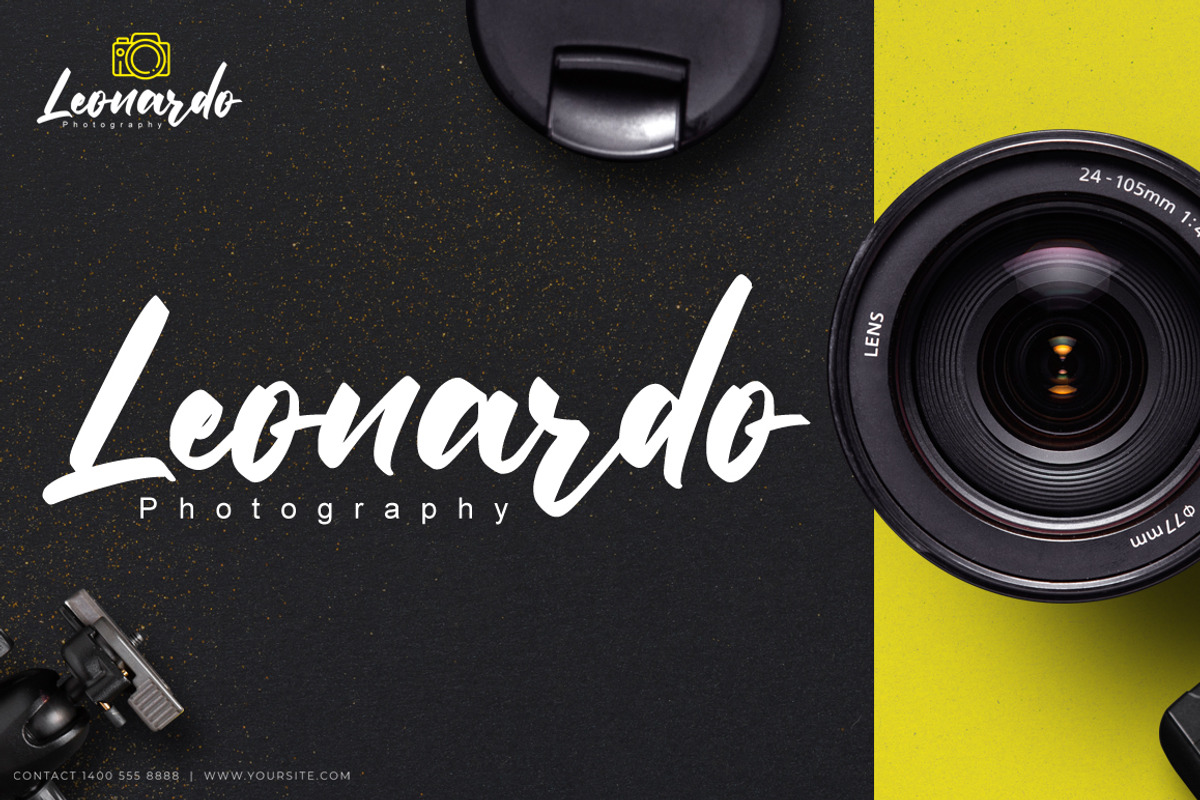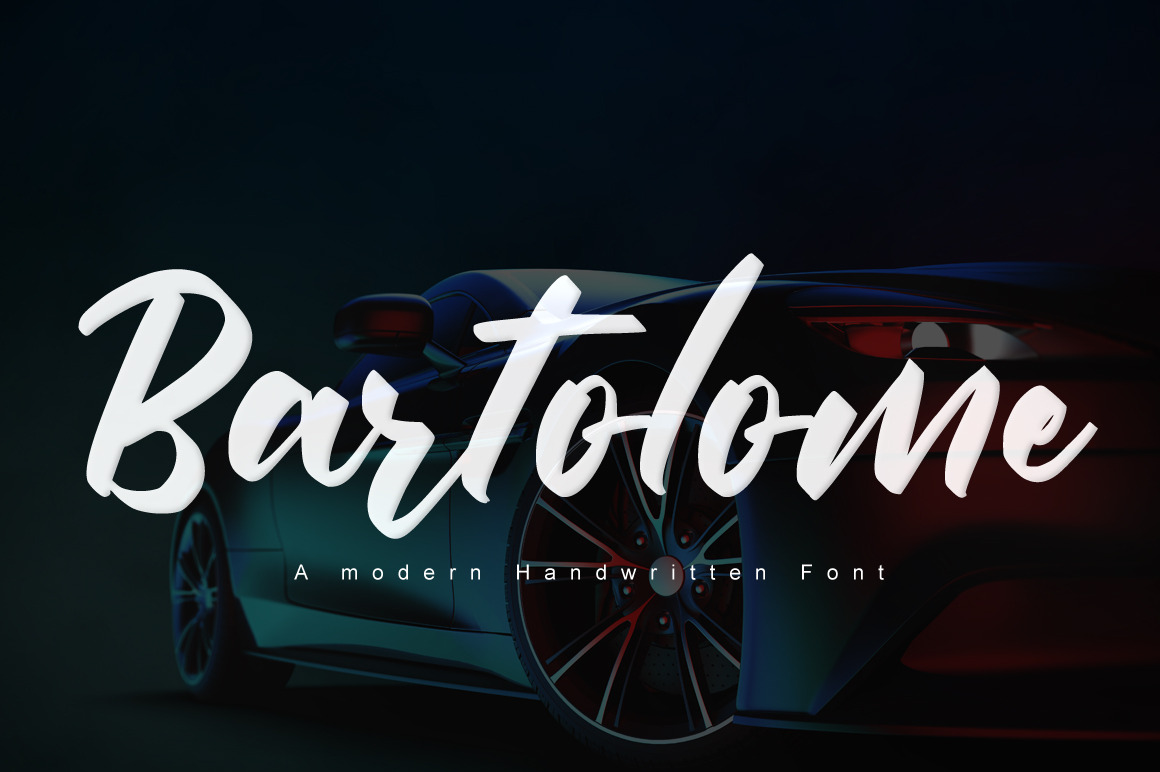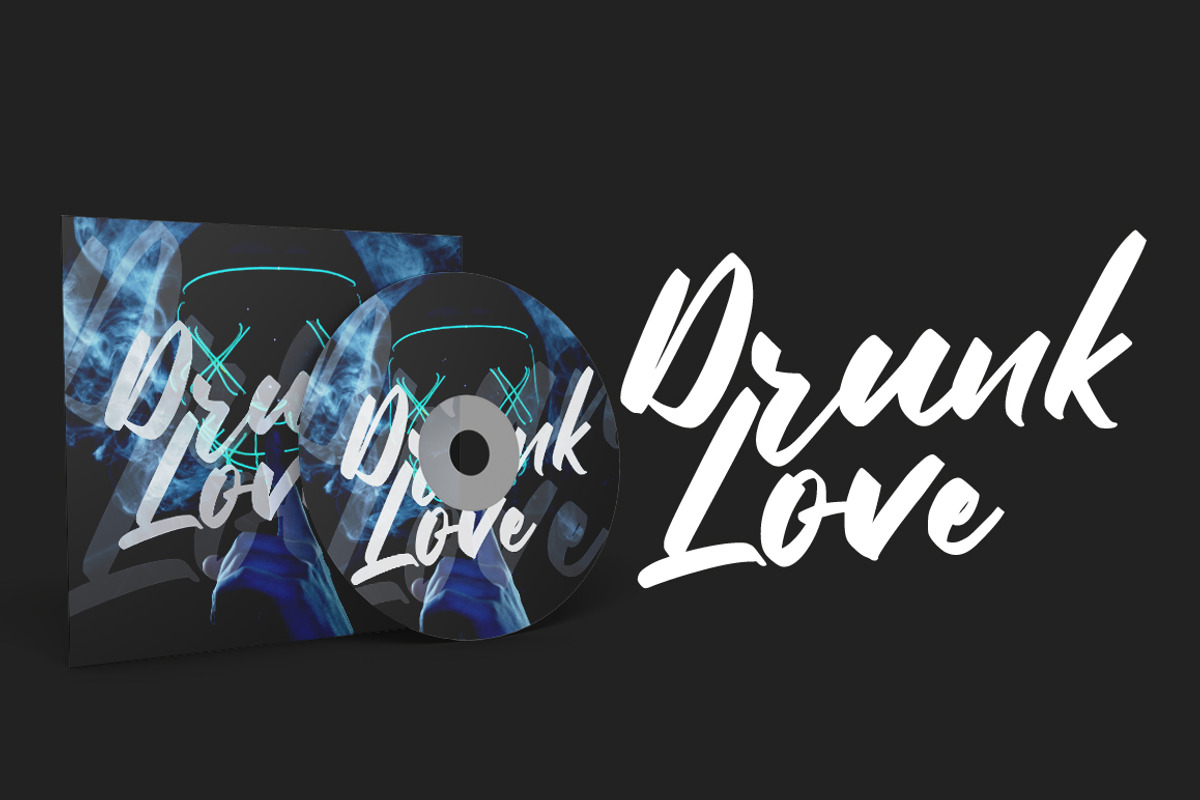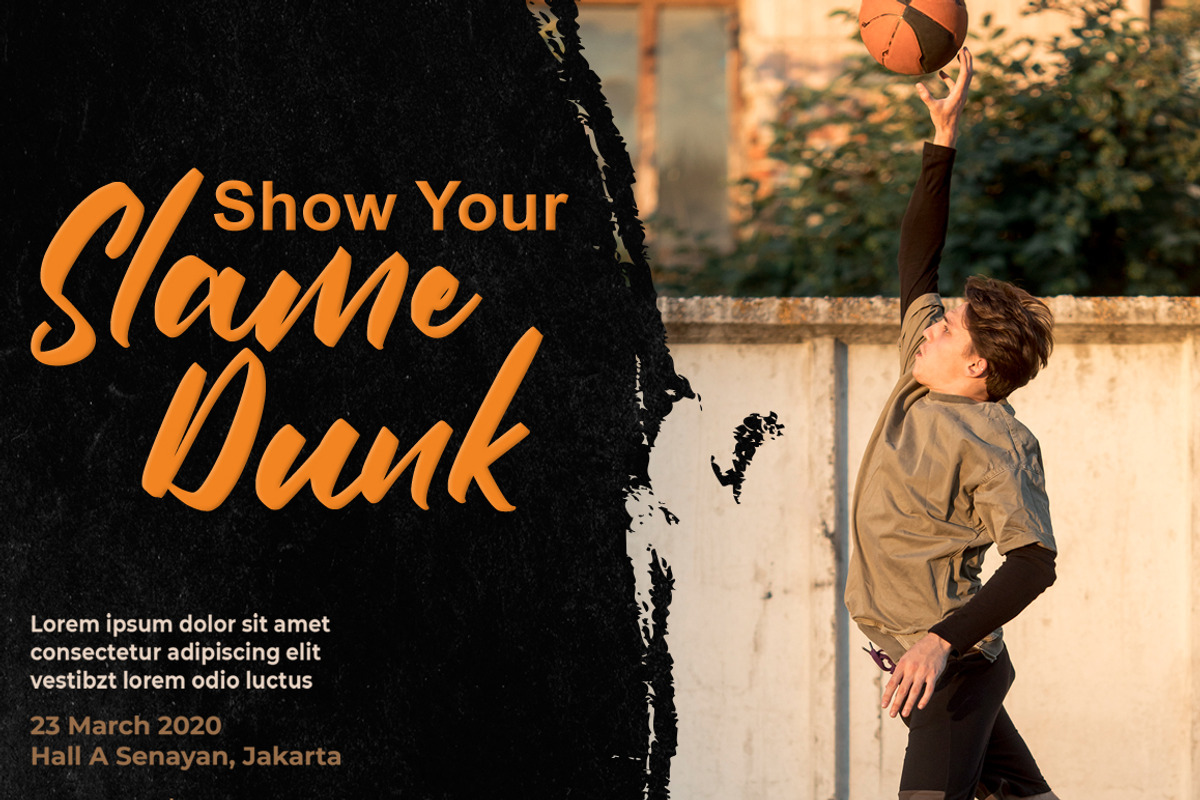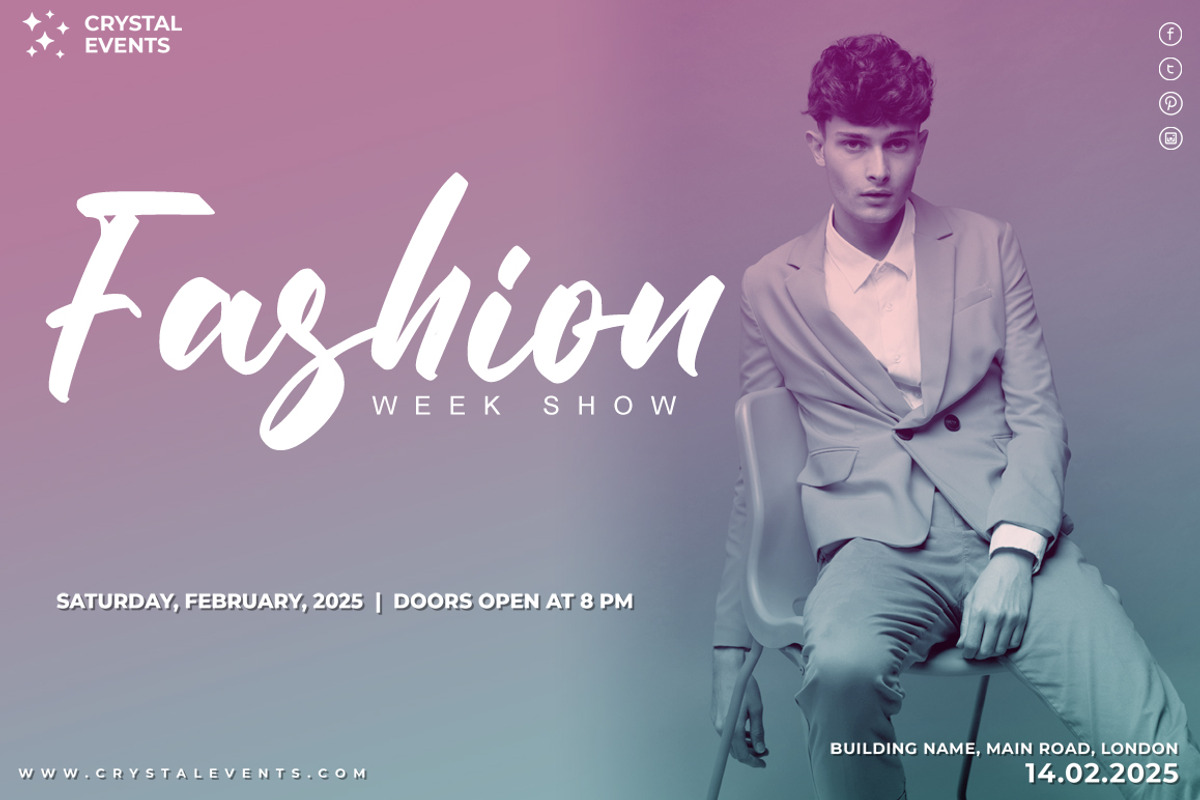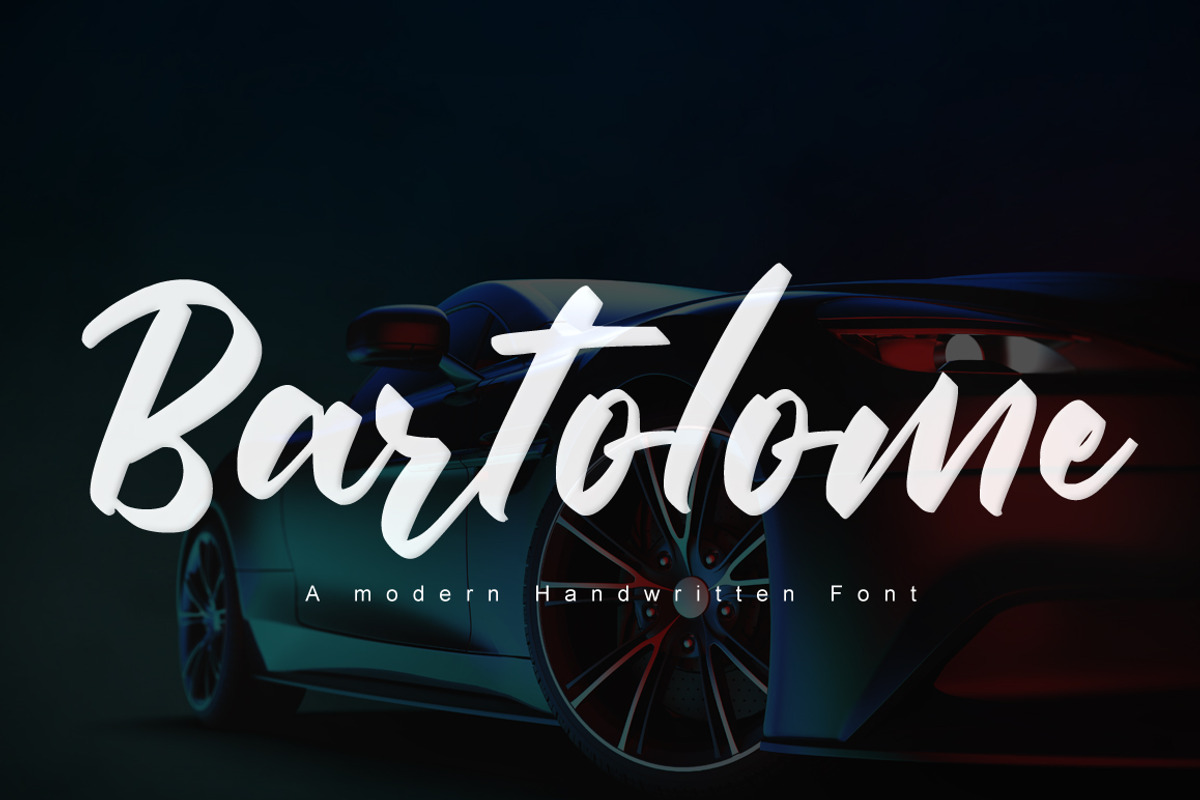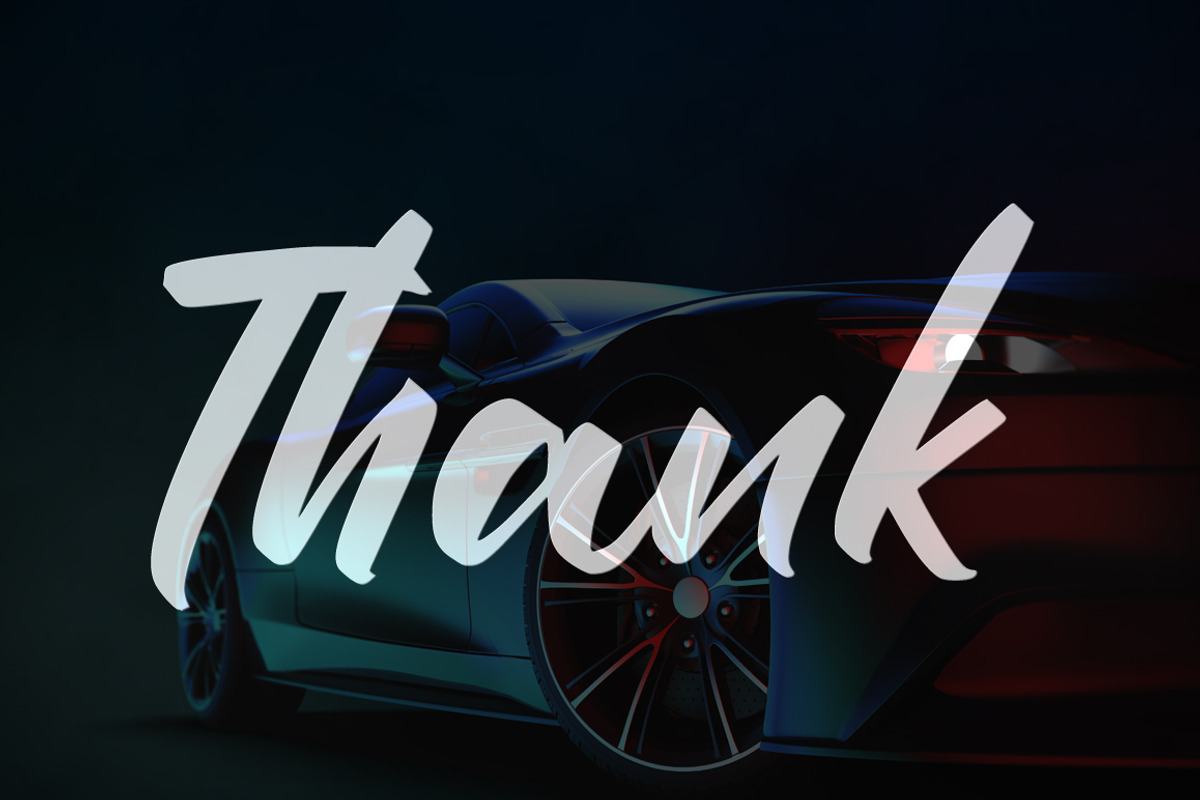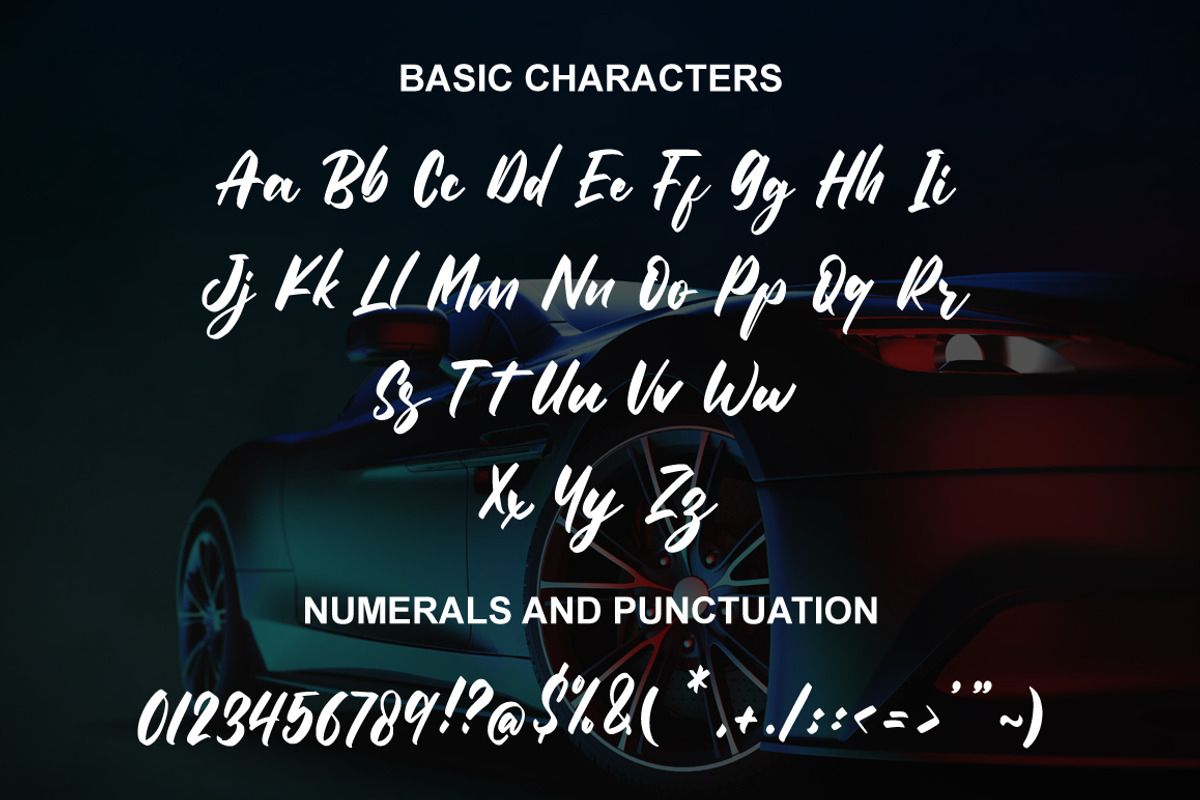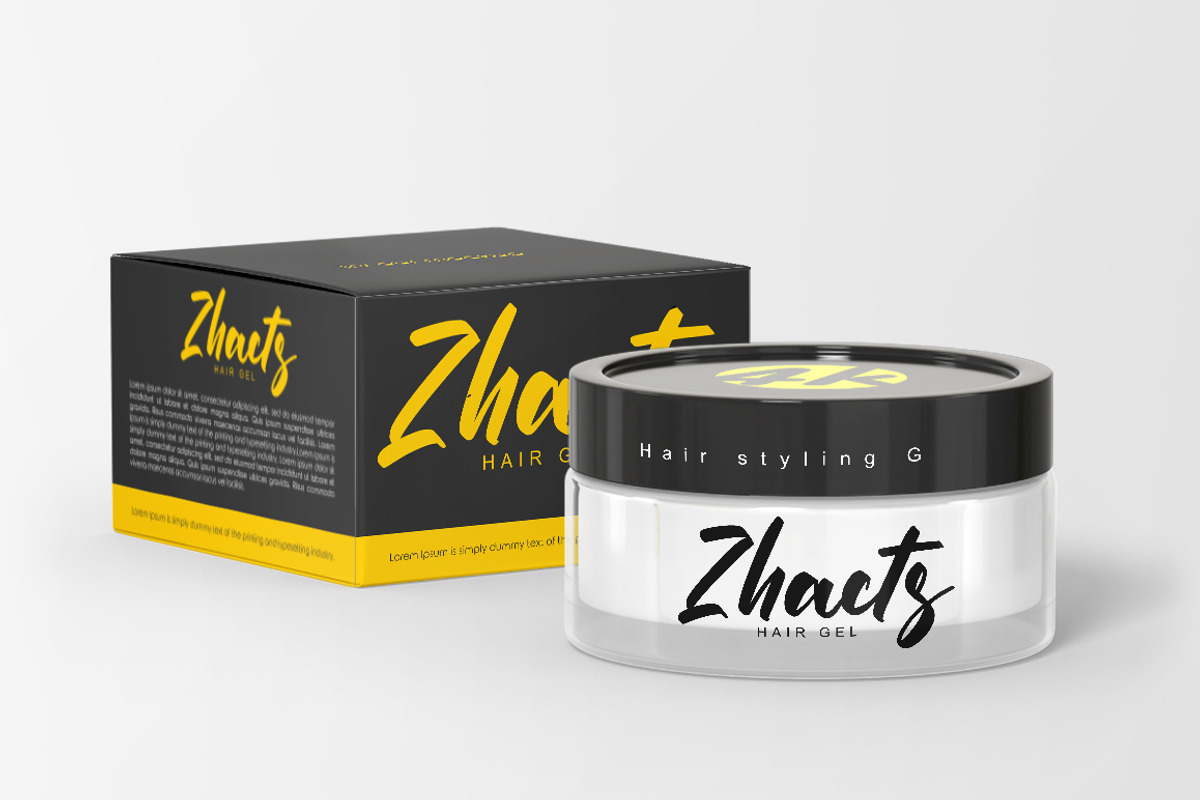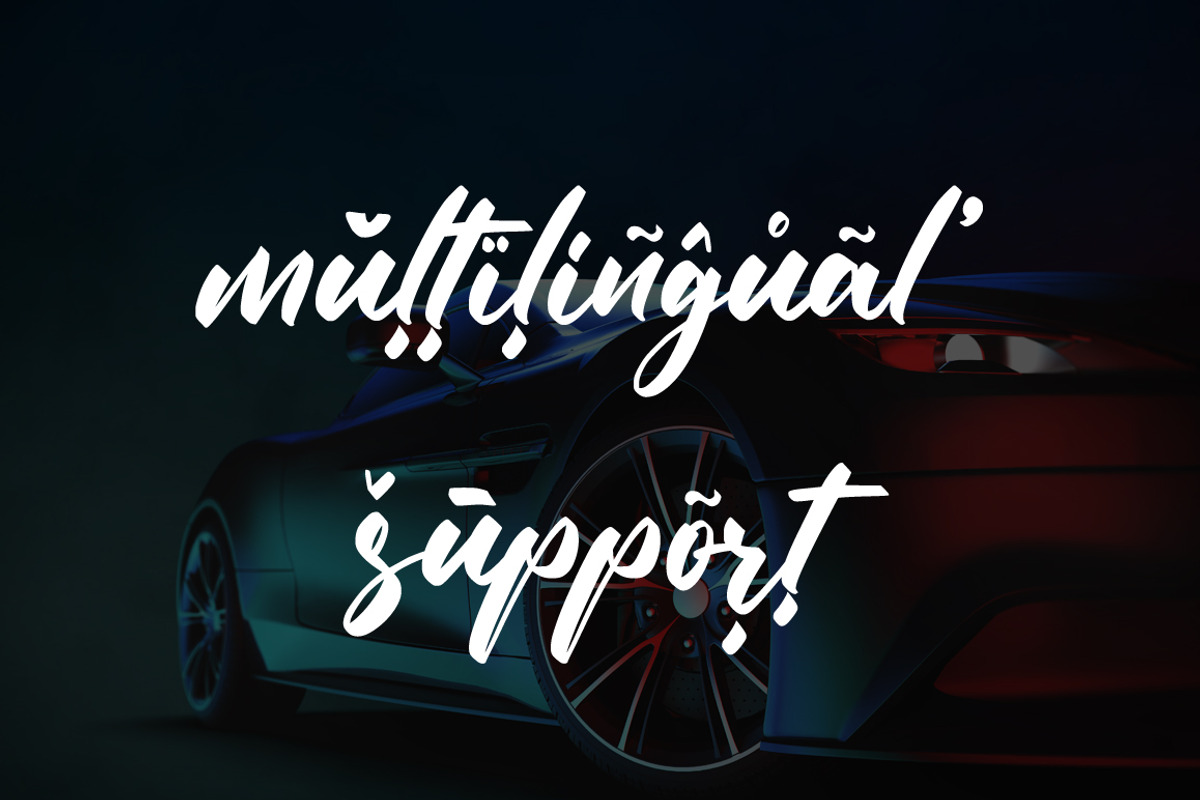
Bartolome a Modern Handwritten Font
Bartolome is a gorgeous and bold handwritten font, crafted to give your headlines and logotype projects a stylish touch. This font reads as strong, confident, and dynamic and can add tons of nostalgic character to your designs.